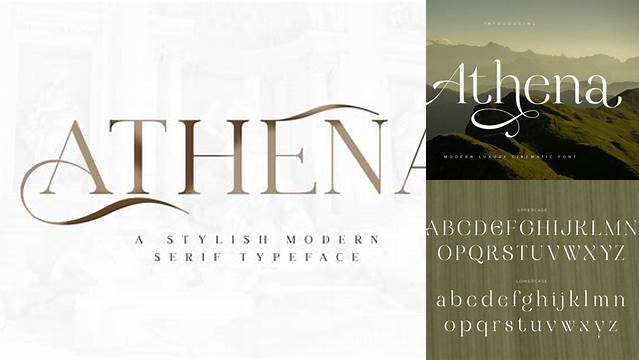
Athena Serif Font: Modern Elegance For Your Designs
Hey everyone! Today, we're diving deep into the world of typography, and specifically, a font that's been making waves in the design community: the Athena Serif Font. And the best part? It's free! Yep, you heard that right. This stylish and modern serif font is a fantastic addition to any designer's toolkit, offering a touch of sophistication and contemporary flair. Let's explore why Athena is so awesome and how you can use it to elevate your projects. Get ready to transform your designs with the elegance of Athena!
H2: What Makes Athena Serif Font Stand Out?
Athena Serif Font distinguishes itself with its clean lines, balanced proportions, and a subtle modern twist on the classic serif style. Unlike some overly ornate or overly minimalist fonts, Athena strikes a perfect balance. It's incredibly versatile, suitable for a wide range of applications from website headings and body text to print materials like brochures and posters. The careful attention to detail in its design makes it highly readable, ensuring your message is easily understood by your audience. The font's character set includes a variety of weights and styles, giving you plenty of options to experiment with and find the perfect look for your project. It has a timeless quality that ensures it won't feel dated anytime soon. The design includes a range of ligatures and alternative glyphs, which adds a layer of uniqueness and personality to the font. The curves are smooth, and the serifs are well-defined, giving a polished look. The kerning is excellent, ensuring each letter sits just right, and the overall aesthetic is one of refined simplicity, a rare attribute in the free font arena. With Athena, your designs will look professional and stylish without costing a dime. This is especially beneficial for those just starting out or working with tight budgets. Athena also offers excellent legibility across various screen sizes and resolutions, making it a great choice for modern web design. The typeface is also designed with multilingual support, ensuring compatibility across different languages. Its carefully crafted letterforms convey a sense of authority and sophistication. The versatility of Athena lies in its ability to complement a broad spectrum of design styles, from minimalist to more elaborate compositions.
H3: The Aesthetic Appeal of Athena's Design
When we delve deeper into the aesthetic of Athena Serif Font, we find a design that's both modern and timeless. The serifs, while traditional, are crafted with a contemporary edge, giving the font a unique and eye-catching appearance. The designers have masterfully balanced the thickness of the strokes, creating a sense of harmony and visual interest. The spacing between the letters has been carefully considered to provide excellent readability, making it a joy to read long passages of text. The design team behind Athena clearly understood the importance of both aesthetics and functionality. The font's clean lines and elegant curves convey a sense of sophistication. These fonts are perfect for creating a sense of luxury and elegance. The design incorporates subtle details that make a big impact. This attention to detail is what sets Athena apart from other free fonts. The curves and angles are meticulously crafted to create a consistent and pleasing visual experience. Whether you're designing a website, a brochure, or a logo, Athena will help you create a memorable and professional look. The font's visual balance allows it to be used in both large and small sizes without compromising readability. Its visual appeal makes it a great choice for branding and marketing materials. The font's design lends itself well to both digital and print media. The aesthetic design of Athena is a testament to the power of thoughtful typography, making it an ideal choice for anyone looking to elevate their design projects with a touch of elegance.
H2: Exploring the Features of Athena Serif Font
Athena Serif Font boasts a robust set of features that make it a standout choice for designers of all levels. First and foremost, it offers multiple weights, including regular, bold, and italic, allowing for greater design flexibility. This variety ensures that you can create visually diverse layouts, emphasizing different aspects of your content. Another key feature is its extensive character set. Athena supports a wide range of languages, making it a versatile choice for global projects. This broad compatibility ensures that your designs will be accessible to a diverse audience without any formatting issues. The font also includes OpenType features such as ligatures and stylistic sets. These features allow for more sophisticated typography, improving the overall aesthetics and readability of your text. With OpenType features, you can achieve a polished, professional look that sets your designs apart. Athena's design also features a consistent and well-defined kerning, which is critical for ensuring that each character sits in its proper place. This attention to detail enhances the overall readability and visual appeal. Additionally, Athena is often offered in both .OTF and .TTF file formats, ensuring compatibility with a wide range of software and operating systems. This makes the font easy to install and use across different design platforms. The accessibility is fantastic for users of all technical skill levels. The features are designed to ensure a seamless and enjoyable design experience. From the variety of weights to the OpenType features, Athena offers everything you need to create stunning designs.
H3: Detailed Look at Athena's Weights and Styles
Taking a closer look at Athena Serif Font's different weights and styles reveals a level of versatility that is crucial for any designer. The regular weight is the foundation, providing a clean and classic look that is ideal for body text, headings, and general design elements. This weight provides a balance between readability and elegance, making it perfect for various applications. Next, the bold weight adds a touch of emphasis. It's perfect for highlighting key information, creating impactful headlines, and drawing the reader's attention to specific elements within a design. Then comes the italics, providing a graceful and dynamic touch, allowing you to create a sense of sophistication. This style is great for adding emphasis to certain words or phrases, creating a sense of movement within the design. The inclusion of various weights and styles makes Athena Serif Font adaptable to a multitude of projects. You can use the regular weight for the main body of text, the bold weight for headings, and the italics for quotations. The font's design is consistent across all weights, ensuring that the different styles complement each other. This cohesion allows for a unified and polished look. Athena's range ensures a seamless user experience. Whether you're designing a website, a print publication, or a marketing campaign, the different weights and styles enable you to achieve the perfect balance of visual appeal and readability. Furthermore, these diverse styles make it easy to create visual hierarchy in your designs, guiding the reader's eye and highlighting important information.
H2: Perfect Projects for Athena Serif Font
Athena Serif Font is incredibly versatile and shines in various design projects. If you're working on a website design, Athena can be an excellent choice for headings, subheadings, and even body text, especially if you are aiming for a clean, modern aesthetic. Its readability and elegance make it an excellent choice for online content. For branding and logo design, Athena provides a sense of sophistication that can make your brand stand out. The font's timeless appeal ensures that your logo won't feel dated quickly, giving your brand a lasting presence. Athena is also ideal for creating elegant print materials. Think brochures, posters, and flyers. Its clean lines and well-defined serifs make it highly readable, even at smaller sizes, ensuring that your message is conveyed clearly. Athena can be a great option for editorial design, such as magazines and books. The font's legibility makes it a joy to read, enhancing the reader's experience and ensuring they stay engaged with the content. If you are crafting digital documents, like presentations or reports, Athena can also elevate your visuals. Its clean and modern look provides a professional touch, making your work look polished and refined. In essence, Athena is suitable for projects where you want to convey sophistication, readability, and a modern touch. The font provides a great foundation for various creative projects. Whether you're designing for digital or print media, Athena can help you create visually stunning results. The versatility ensures it complements almost any design style.
H3: Using Athena for Website Design
Athena Serif Font is an excellent choice for website design, offering a blend of readability and style that can significantly enhance the user experience. When implementing Athena in your website, use it for headings, subheadings, and body text. This creates a cohesive and visually appealing layout. Consider using the regular weight for body text to maintain readability, making it easy for users to read long-form content. For headings and subheadings, use bold weights to draw attention and create visual hierarchy. Experiment with different font sizes to create a balanced visual layout that guides the user's eye. Ensure enough contrast between the text and the background to ensure readability. Athena's clean lines and well-defined serifs look great on screens of all sizes, adapting seamlessly to responsive web design. Test your website on various devices to ensure a consistent and accessible experience. You can also pair Athena with a sans-serif font for the rest of the content for added contrast and visual interest. Use the italics sparingly for emphasis, such as for quotes or specific calls to action. Keep the overall design of your website minimal and clean. The font's elegance should be the centerpiece, so let it speak for itself without overwhelming the user with too many design elements. Make sure the font is easy to understand and navigate. This focus on both aesthetics and functionality is what makes Athena a great choice. The font will greatly improve your site's look and feel.
H2: Pairing Athena with Other Fonts